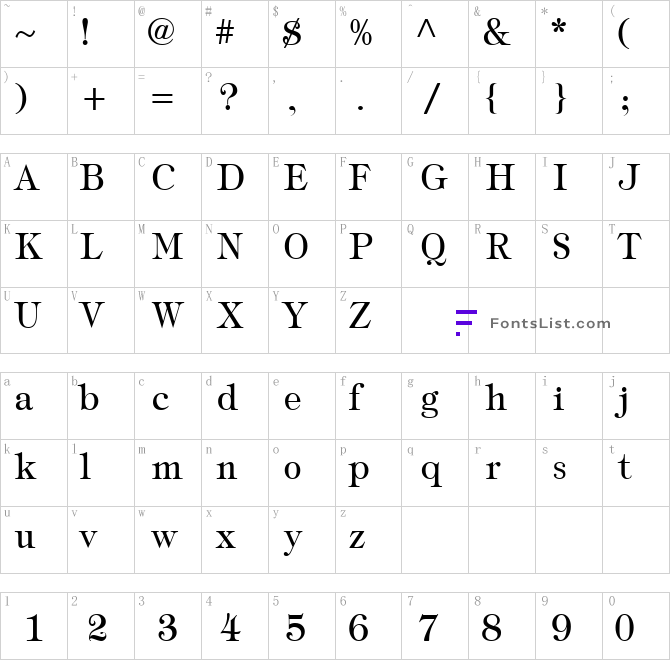
- Font Name:Cambridge
Cambridge-copy-1-.ttf is a very beautiful artistic font, Cambridge-copy-1-.ttf is widely used in the design and printing of various books and pictures,Cambridge-copy-1-.ttf has a strong visual impact,Cambridge-copy-1-.ttf is a commonly used font in newspapers, magazines and books, and is used in posters, e-commerce Poster design, store design, logo design, font design and other fields.Cambridge-copy-1-.